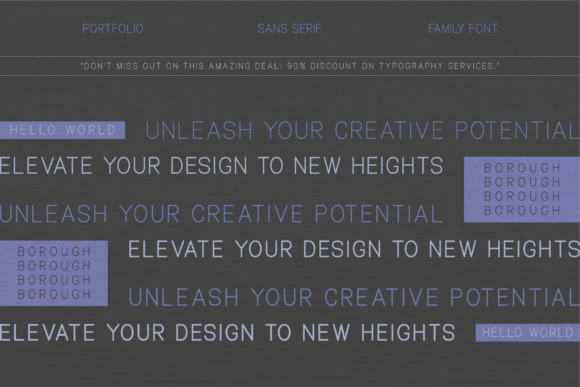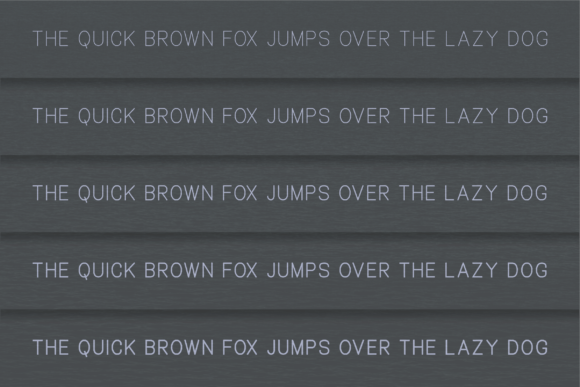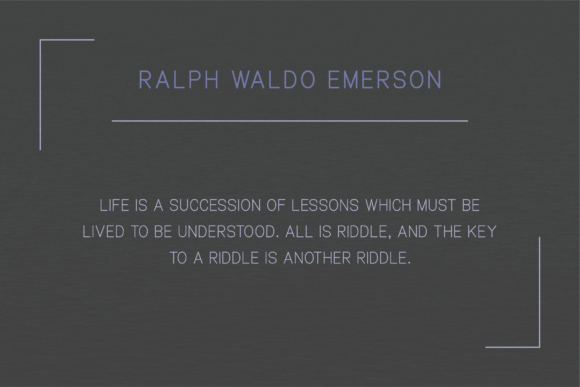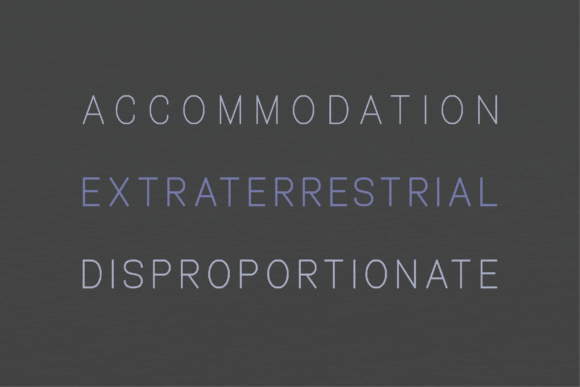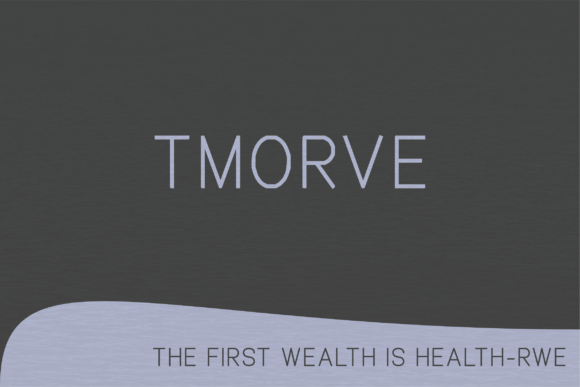
Introducing Borough Font: The Epitome of Refinement and Minimalism
In the realm of typography, few fonts manage to strike a balance between refinement and minimalism. However, the Borough Font family achieves this feat with remarkable precision. This handcrafted sans serif font assortment is a masterful blend of contemporary design and opulence, making it an ideal choice for designers and crafters seeking to elevate their creative projects.
A Family of Five Unique Weights
The Borough Font family boasts an impressive range of five unique weights, catering to diverse design requirements. Whether you’re working on a sleek magazine, a dynamic logo, or a captivating film poster, this font family has got you covered. The varying weights ensure that your designs exude a sense of sophistication and elegance, while maintaining clarity and legibility.
Contemporary Design Meets Opulence
The Borough Font family is a testament to the perfect marriage of contemporary design and opulence. The clean lines, precise curves, and carefully crafted letterforms come together to create a visually stunning font that is both modern and luxurious. This font family is ideal for designers who want to infuse their projects with a sense of refinement and poise.
Unmatched Accuracy and Attention to Detail
The Borough Font family has been developed with unmatched accuracy and attention to detail. Each letterform has been meticulously crafted to ensure that the font is not only aesthetically pleasing but also highly legible. This attention to detail makes the Borough Font family an excellent choice for designers who demand the highest level of quality in their typography.
Bringing Life to Your Creative Projects
The Borough Font family has the power to breathe life into any creative project. Its versatility and range make it an ideal choice for a wide range of applications, from editorial design to branding and advertising. Whether you’re working on a digital project or a print publication, this font family is sure to make a lasting impression.
Flawless Blend of Sophistication and Simplicity
The Borough Font family embodies the perfect blend of sophistication and simplicity. Its clean and minimalist design ensures that your designs radiate with an everlasting allure, while its refined and elegant aesthetic adds a touch of luxury. This font family is ideal for designers who want to create designs that are both visually stunning and timeless.
Unleash Your Creativity with Borough Font
With the Borough Font family, you can unleash your creativity and take your designs to the next level. Its versatility, range, and precision make it an ideal choice for designers and crafters seeking to create visually stunning and effective designs. Whether you’re a seasoned designer or just starting out, this font family is sure to inspire and empower you to create something truly remarkable.
Key Features of Borough Font
• Handcrafted sans serif font family
• Five unique weights to cater to diverse design requirements
• Contemporary design meets opulence and luxury
• Unmatched accuracy and attention to detail
• Highly legible and versatile
• Ideal for editorial design, branding, advertising, and more
With the Borough Font family, you’re just a step away from elevating your designs to new heights. Its precision, versatility, and aesthetic appeal make it an ideal choice for designers and crafters seeking to create visually stunning and effective designs. So why wait? Unleash the potential of the Borough Font family today and let your creativity shine.